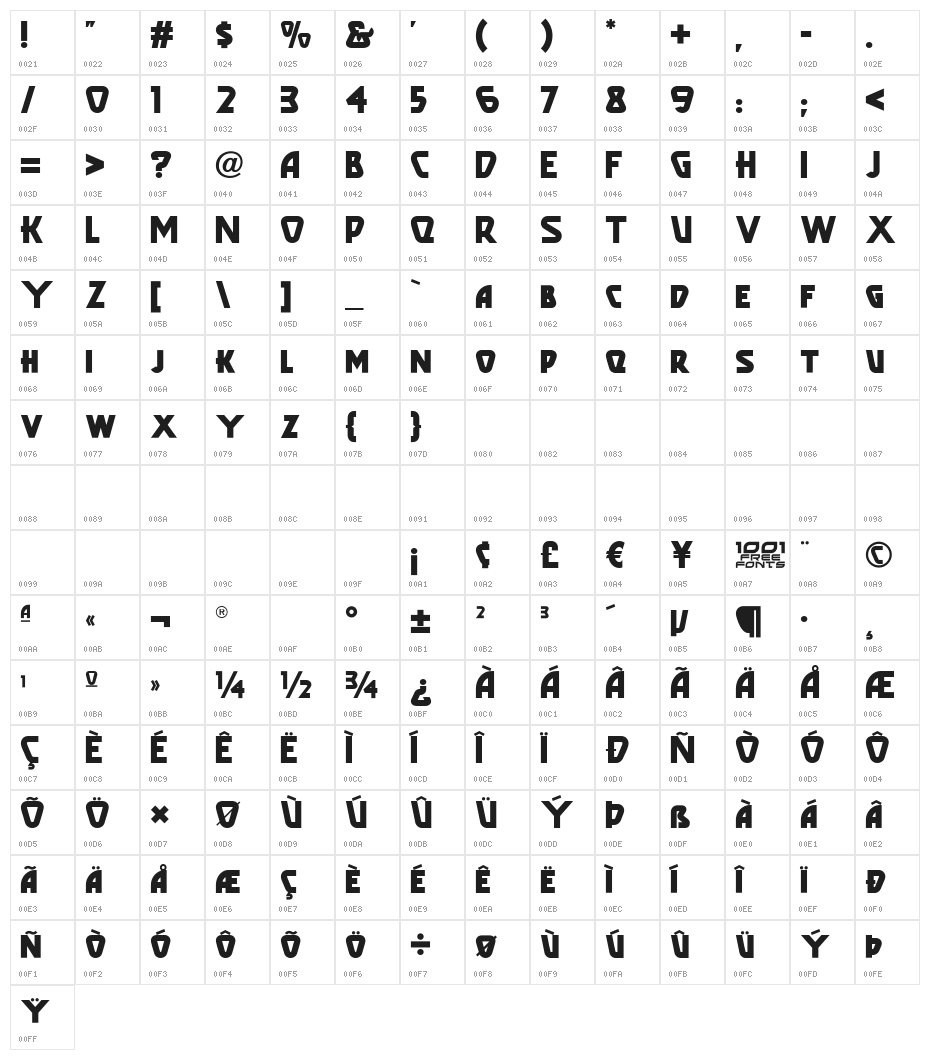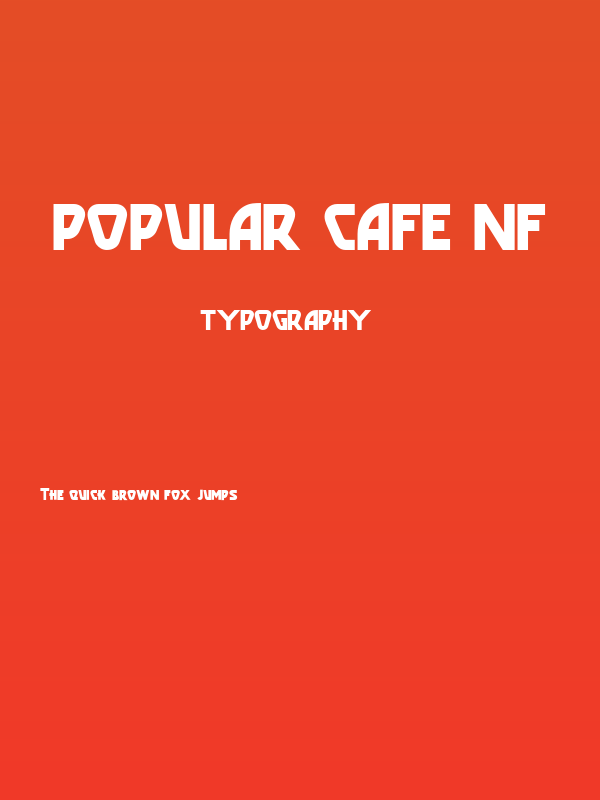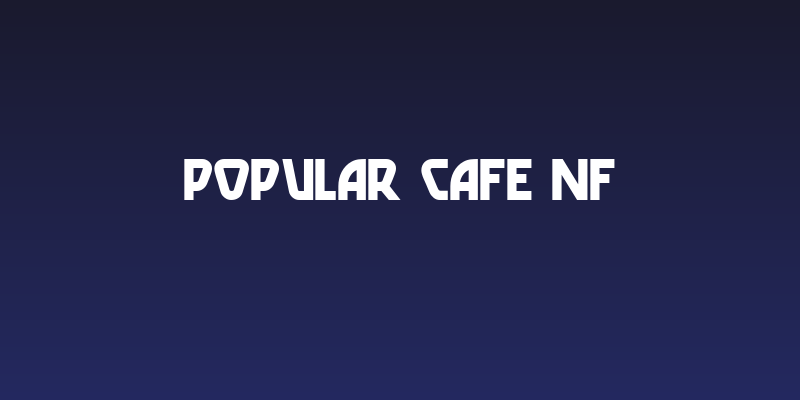
Popular Cafe NF Font
Popular Cafe NF Description
This font features a bold and geometric design with a strong presence. The characters are crafted with sharp angles and a uniform thickness, giving it a modern and assertive look. The uppercase letters are particularly striking, with a unique style that combines both straight lines and subtle curves. The numerals and special characters maintain the same boldness, ensuring consistency across all text. This font is ideal for making a statement, with its eye-catching and memorable appearance.
Proposed ProjectsIdeal for branding, posters, and headlines where a strong visual impact is needed.